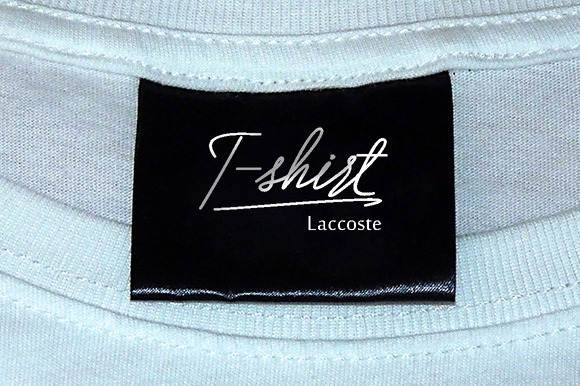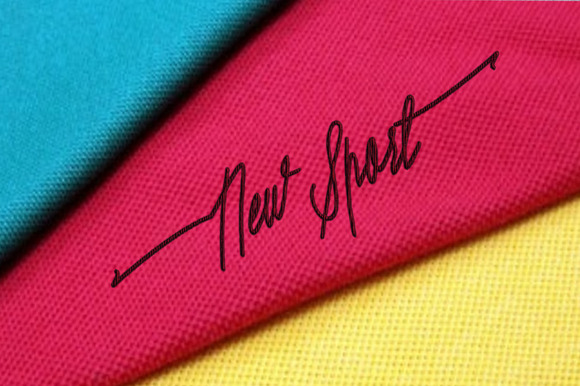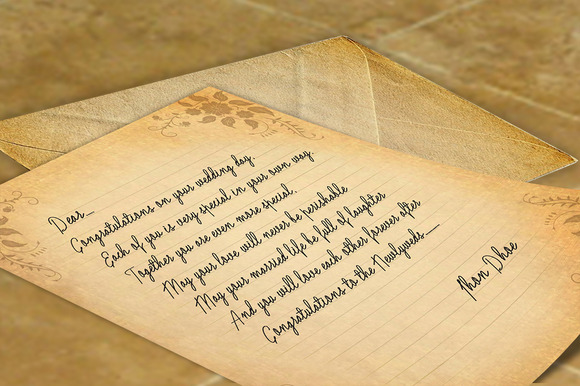
Olivera Font
About Olivera Font
Olivera is a thin marker hand-drawn font created by Groens Studio.
The smooth curvy letters make for great personalized design.